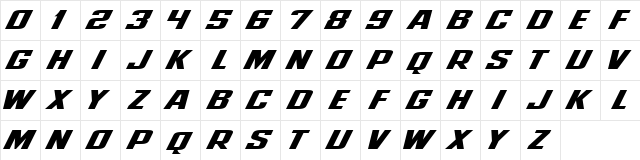
BostonCollegeEagles Regular
Design Context for BostonCollegeEagles Typeface
BostonCollegeEagles brings high-energy athletic personality to the page — its confident, muscular forms are built for impact.
A natural choice for gym brands, fantasy sports, jersey lettering, and action-driven headlines.
Pro Tip: Use BostonCollegeEagles in all-caps headlines where its athletic energy can fully express itself. Pair with a solid, simple sans for supporting text.